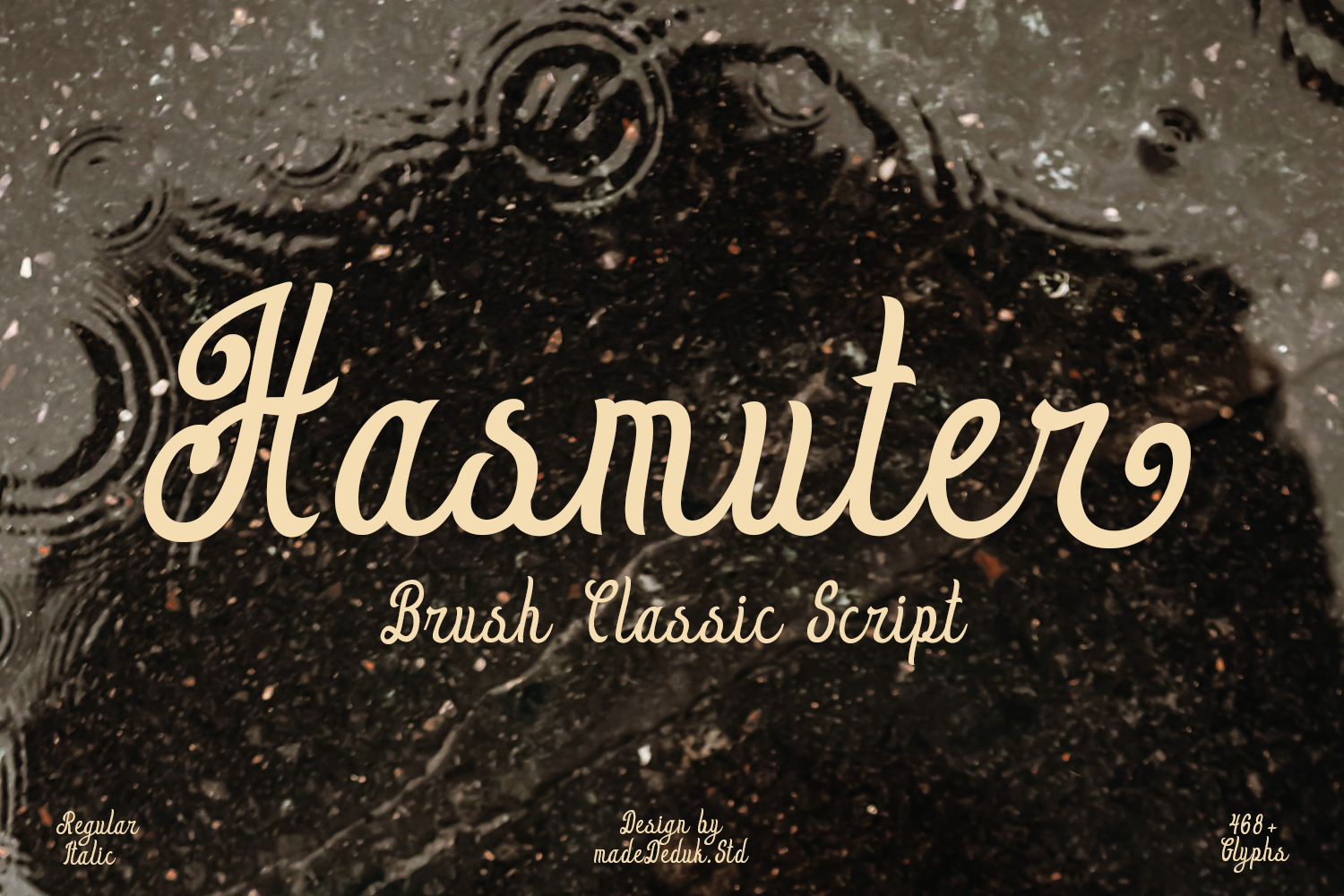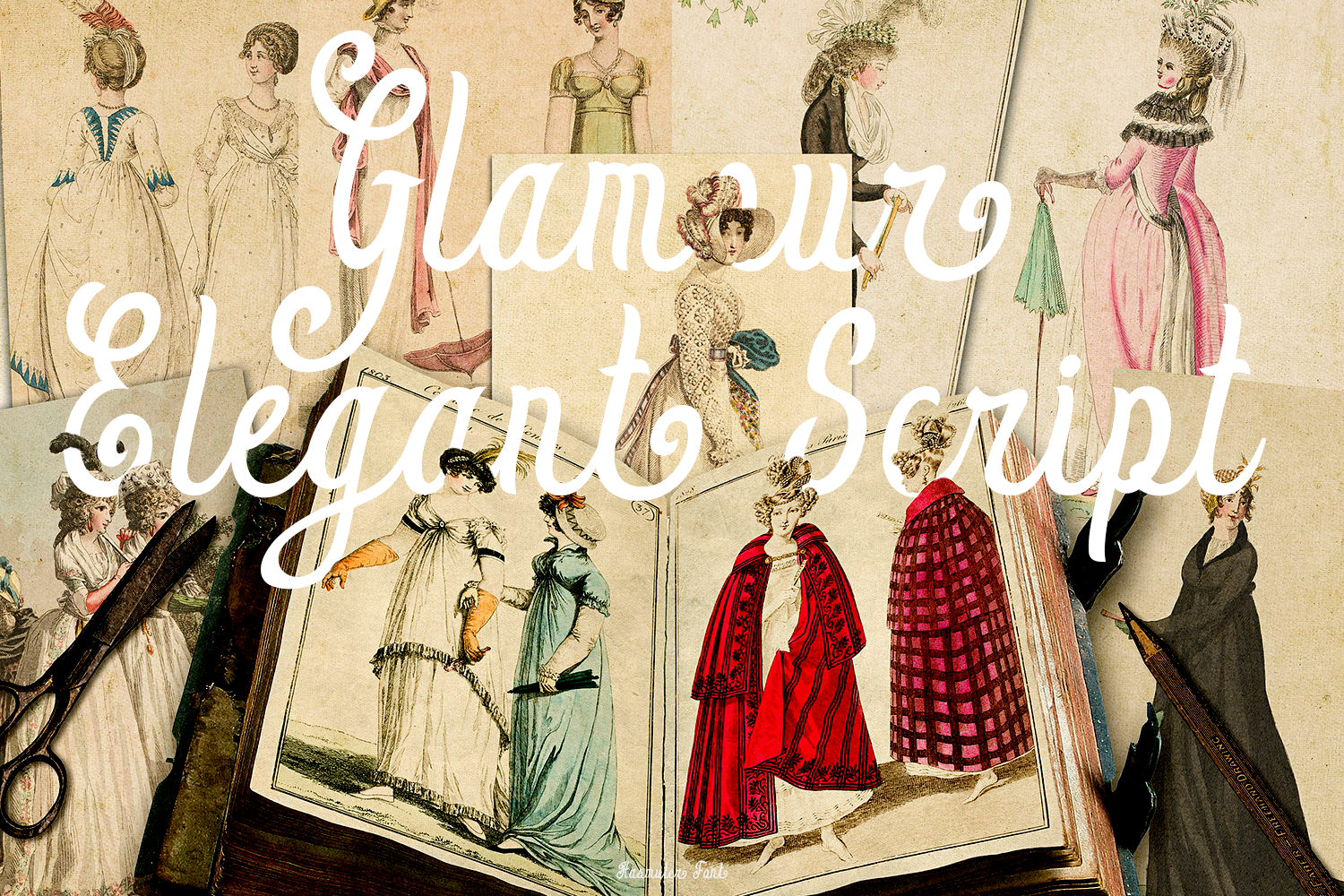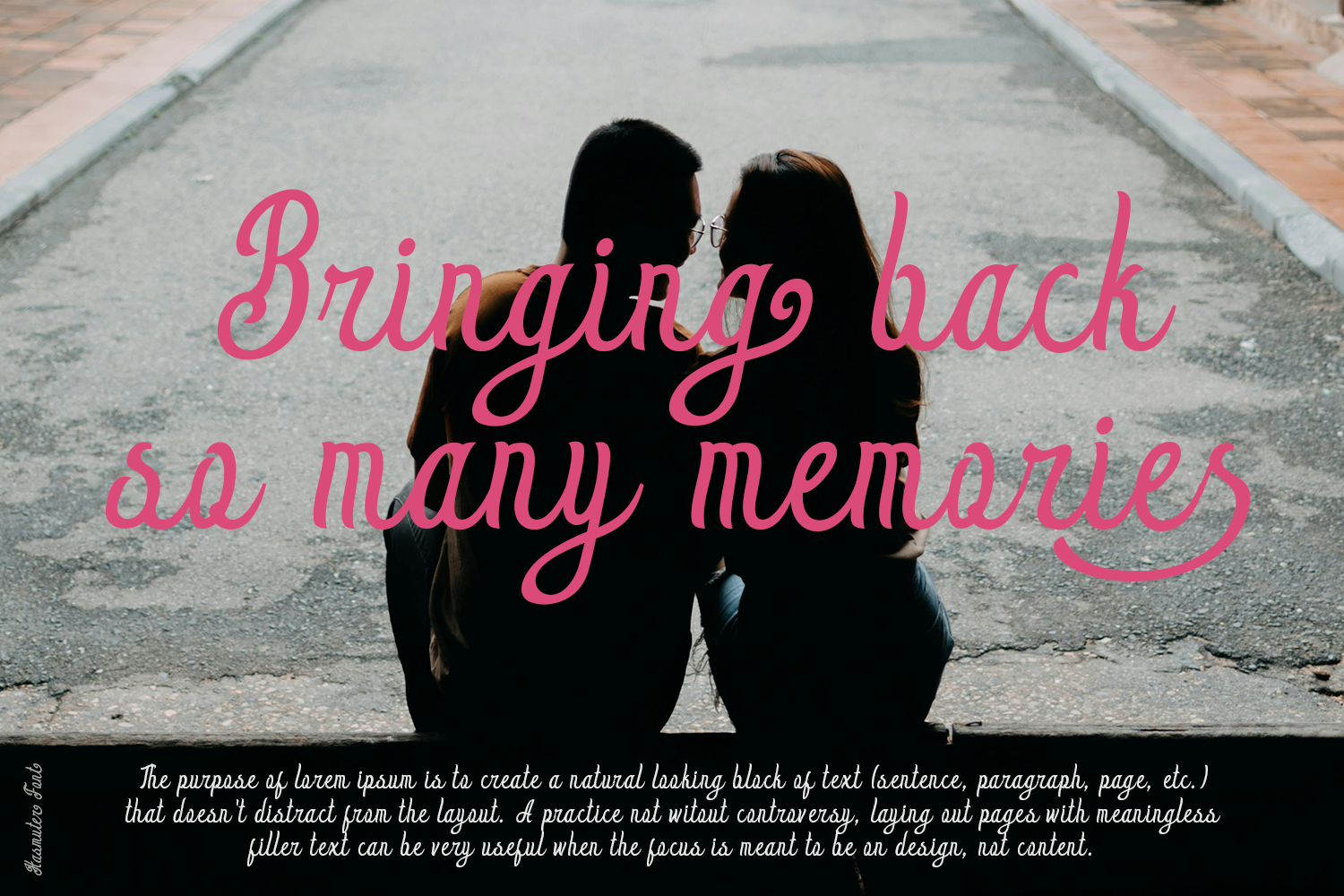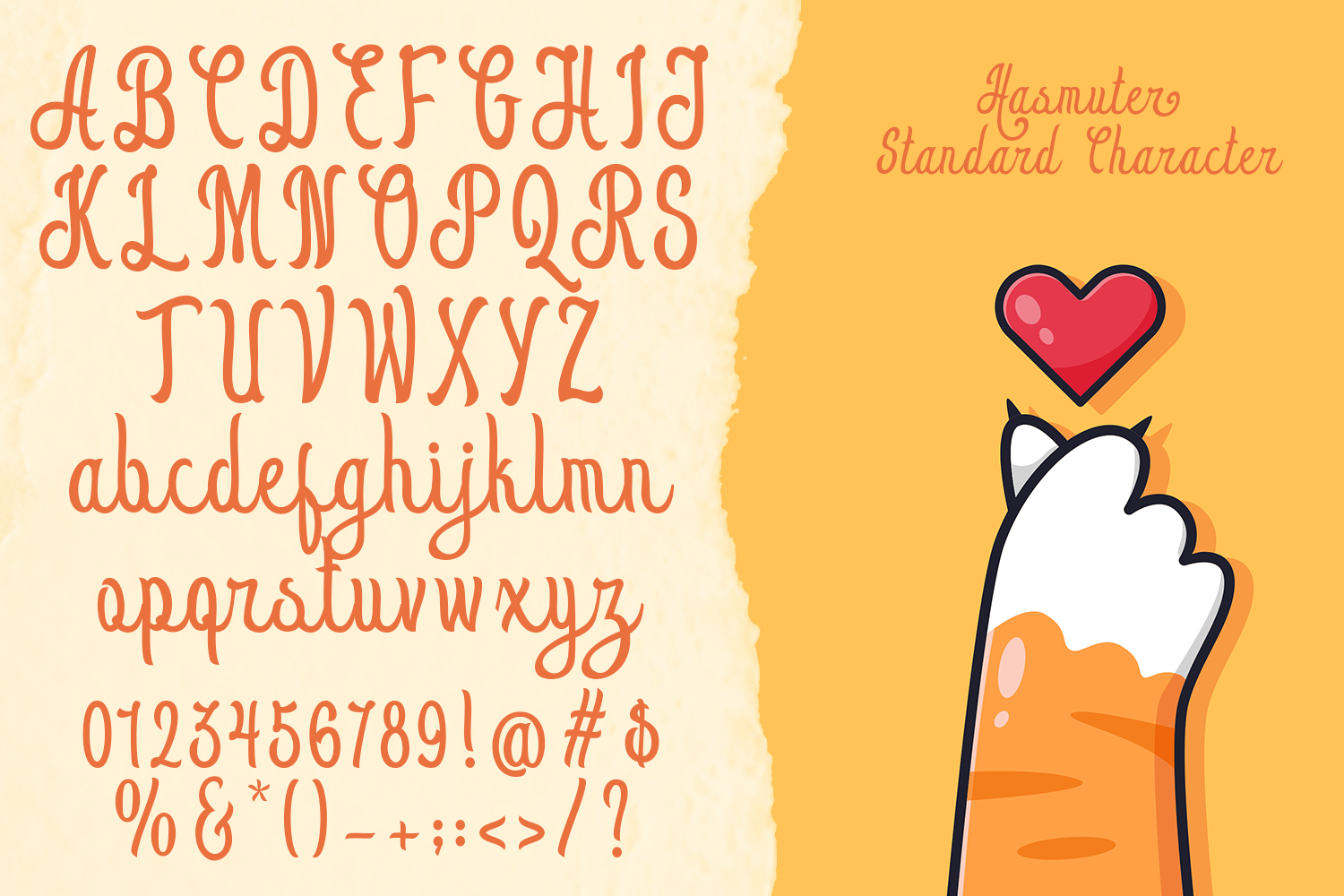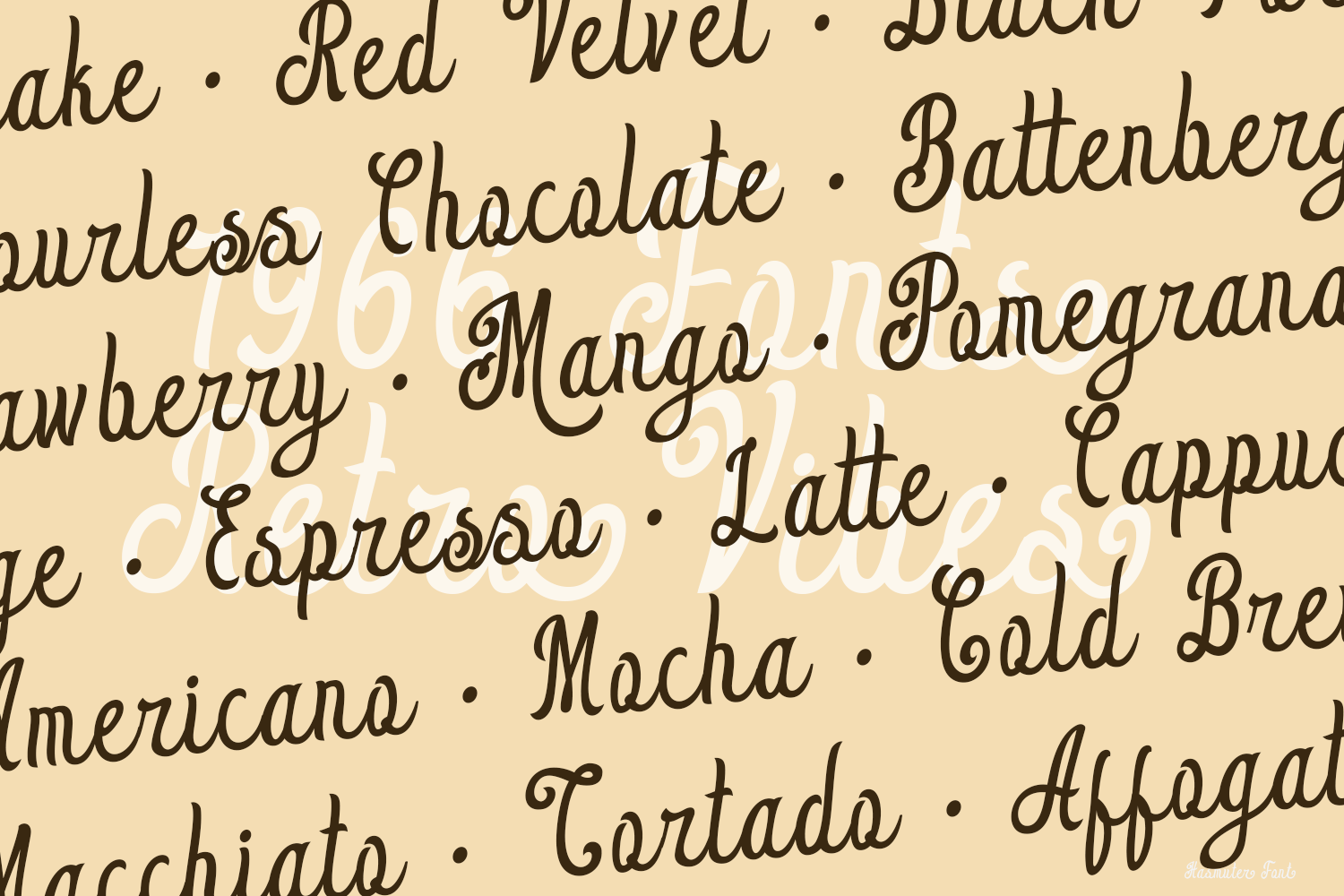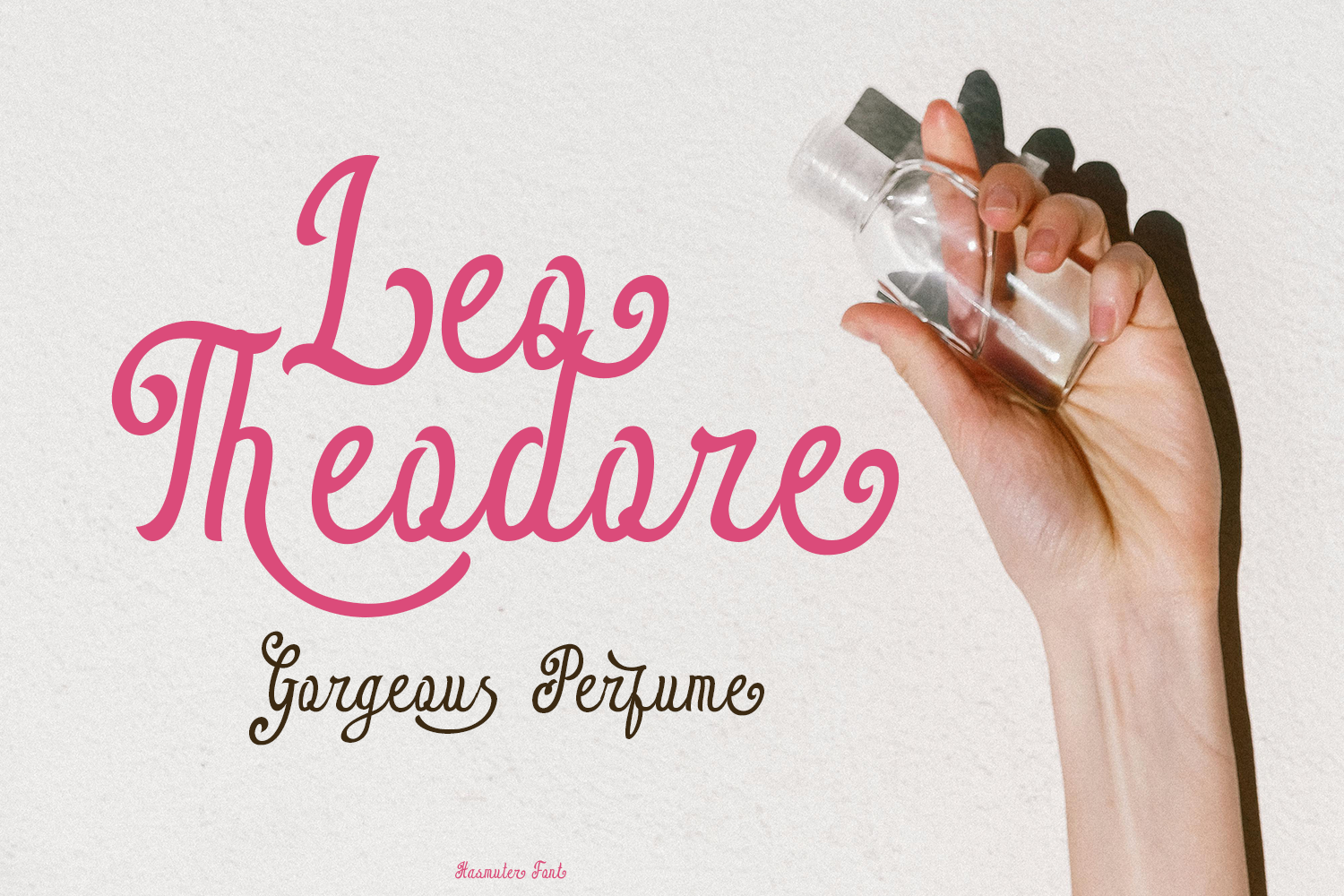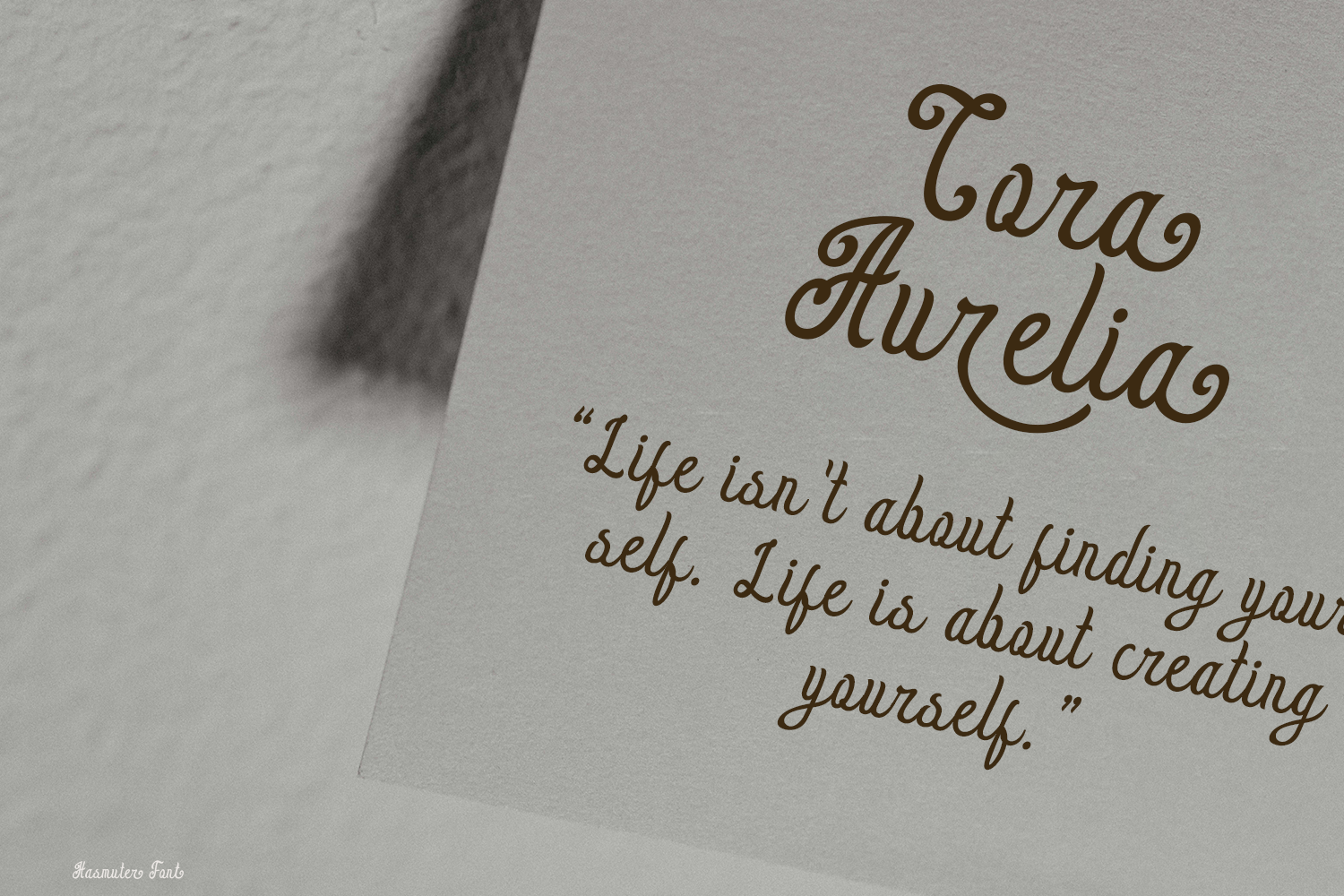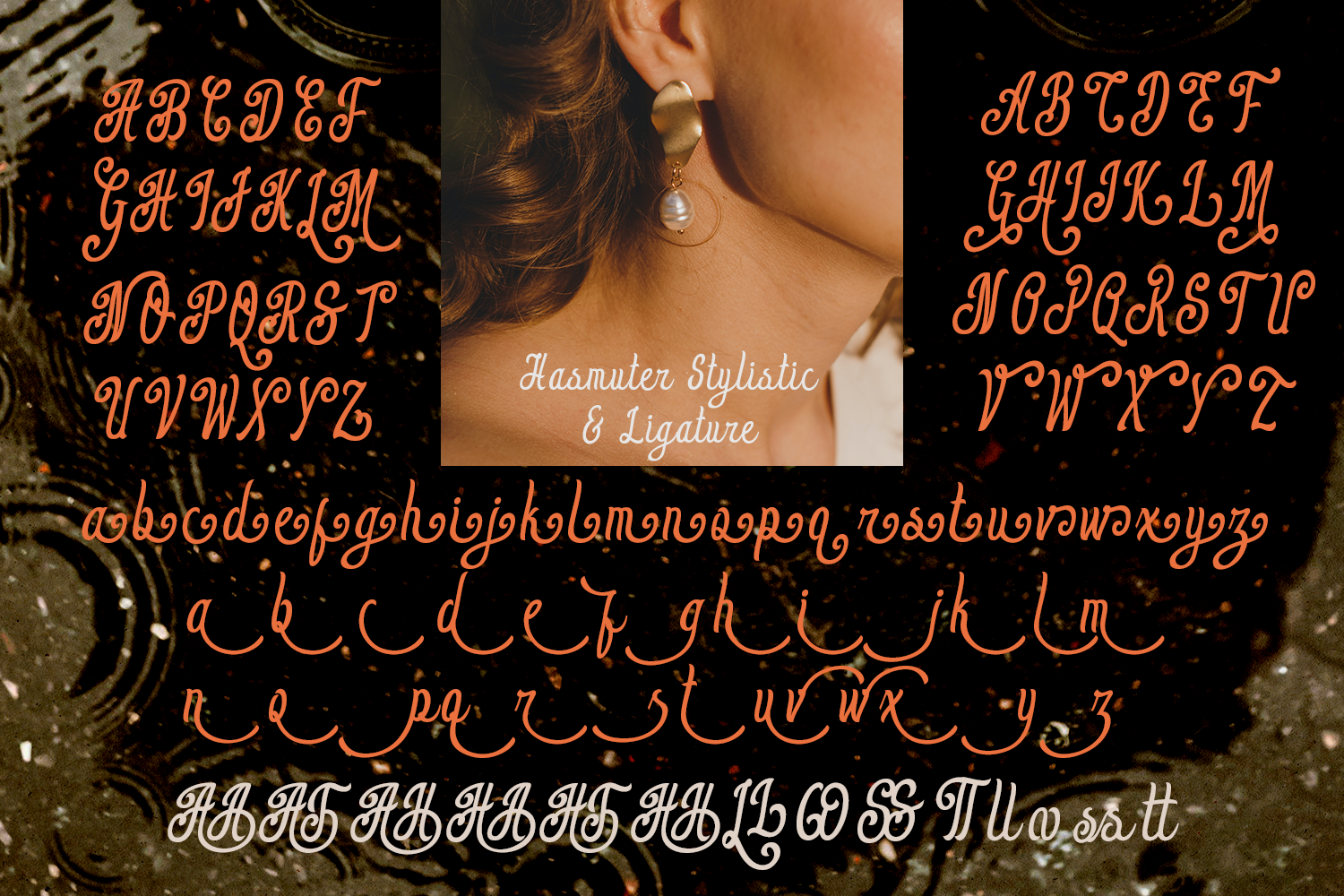
Hasmuter Retro Script
Hasmuter is a retro script that comes with 70’s retro style. Elegant script fonts add a touch of elegance to any design they’re used in. With their smooth curves and sleek lines, elegant script fonts are perfect. You can explore and combine creating rhythm for comfortable reading. Retro and refined use this font for any branding, product packaging, invitation, quotes, headline, label, poster, logo etc.
• Uppercase & Lowercase
• Number & Symbol
• International Glyphs
• Multilingual support
• Alternative
• Ligature